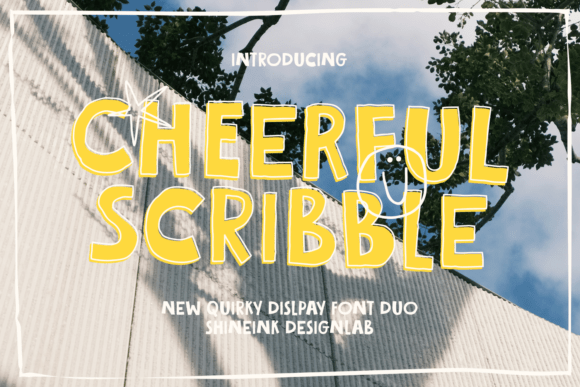
Adding a Smile to Your Design: The Cheerful Scribble Font
Who hasn’t experienced that moment of pure creative joy, where a simple doodle or scribble turns into something truly special? For designers, that moment often comes when they stumble upon the perfect font to bring their vision to life. Enter the Cheerful Scribble Font, a playful display font duo that captures the essence of spontaneous creativity and joyful expression.
With its bold shapes, rounded forms, and imperfect outlines, the Cheerful Scribble Font instantly adds a friendly, approachable vibe to any design. Whether you’re working on a kids’ project, playful branding, or social media content, this font duo is the perfect companion to create eye-catching typography and add an instant smile to your work.
As a valuable addition to any designer’s toolkit, the Cheerful Scribble Font offers a range of features, including lowercase and uppercase letters, numerals and punctuation, accented characters, and support for multiple languages. Its unique, hand-crafted feel makes it a standout choice for designers looking to add a touch of personality to their projects.
Cheerful Scribble Font Key Features
- Unique Characteristics: The Cheerful Scribble Font features a playful, handwritten style with irregular strokes and varying line widths, adding a touch of whimsy and personality to any design.
Designer Review: Cheerful Scribble Font
Overall, I think the Cheerful Scribble Font has some great qualities, but it’s not without its limitations. Let’s start with the positives. ✨ The font has a fun, playful feel to it that’s perfect for projects that need a bit of whimsy. The scribbly texture adds a unique touch that can really make your designs stand out. ✨ The font also includes a wide range of character sets, including numbers, punctuation, and special characters, which makes it easy to use in a variety of contexts.
Now, let’s talk about some of the limitations. ⚠️ One thing that struck me as I was using the font is that it can be a bit difficult to read in certain situations. The scribbly texture can make it hard to distinguish between similar-looking characters, which can lead to errors. Additionally, the font is quite large, so it may not be suitable for projects where space is limited. ⚠️ I also found that the font doesn’t work particularly well in bold or italic styles, which can limit its versatility.
Overall, I think the Cheerful Scribble Font is a great choice for projects that need a fun, playful touch. However, it may not be the best choice for projects that require a lot of precision or versatility.
- Fun, playful feel
- Unique scribbly texture
- Wide range of character sets
- Can be difficult to read in certain situations
- Not suitable for projects with limited space
- Not ideal for bold or italic styles
Here are some tips and common use cases for the Cheerful Scribble Font:
- Use the Cheerful Scribble Font for children’s products, educational materials, or family-friendly designs.